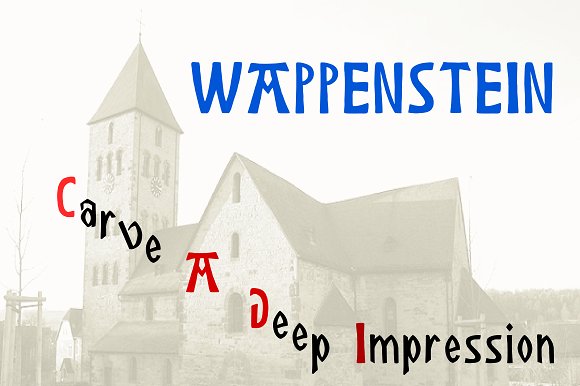
Journey to the past with Wappenstein Font - a display font that carries the essence of ancient artistry. Inspired by the intricate carvings on a 1562 memorial stone, Wappenstein encapsulates the grandeur of bygone eras.
Each letterform is a testament to the skill and devotion of the "Meister des Brenkener Familienepitaphs," the anonymous carver who left an enduring legacy on Paderborn's cultural landscape. The font's graceful curves and evocative lines capture the spirit of a time when art and history were intertwined.
With Wappenstein, you can bring a touch of antique elegance to your creative projects. Whether it's a heritage-inspired logo, a vintage-style poster, or an invitation that evokes the charm of a forgotten era, Wappenstein will transport your audience to a world of timeless beauty.
Let the Wappenstein Font be your creative ally, transforming your digital designs into captivating masterpieces. It's more than just a font; it's a gateway to a rich historical narrative, a bridge between the present and the past. Discover the endless possibilities that await you with Wappenstein, and craft designs that resonate with depth and character.
Feel the weight of history and the allure of artistry blend seamlessly in Wappenstein. Unveil the hidden stories within your creative endeavors, and let the legacy of the Brenkener family live on through your designs. Embrace the heritage, embrace the beauty, embrace Wappenstein.